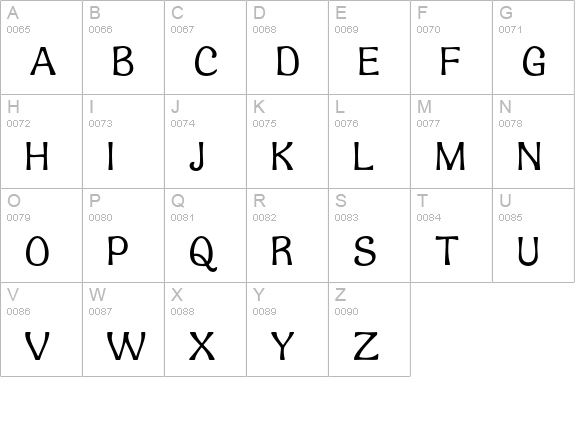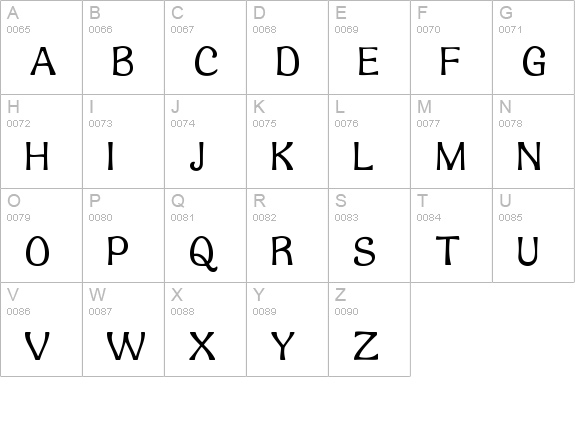
Triorange Font Details
Introducing Triorange, a retro display font with rounded and smooth corner.
Comes with 3 weight : Regular, Medium, and Bold. Simple letter form make this font looks nice either in body text or headline. Perfect for logo, branding, surface design, editorial design, and so many design needs. Bonus for commercial version! You will get graphic elements in .eps format. It’s editable color and size.